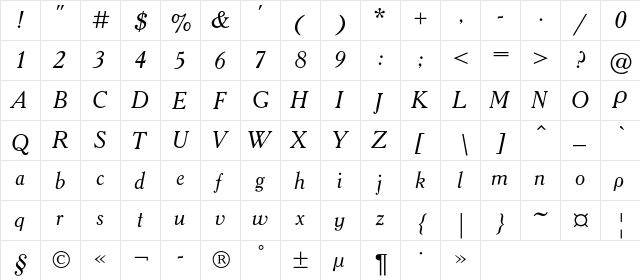
AcademyC Italic
Design Context for AcademyC Typeface
AcademyC offers clean, dependable letterforms without strong stylistic allegiance, making it a practical choice for designers who need flexibility. The dynamic lean of this cut emphasises speed and emphasis in any layout.
Pro Tip: Use AcademyC for emphasis, pull quotes, and subheadings where its slanted energy can add rhythm to the layout.